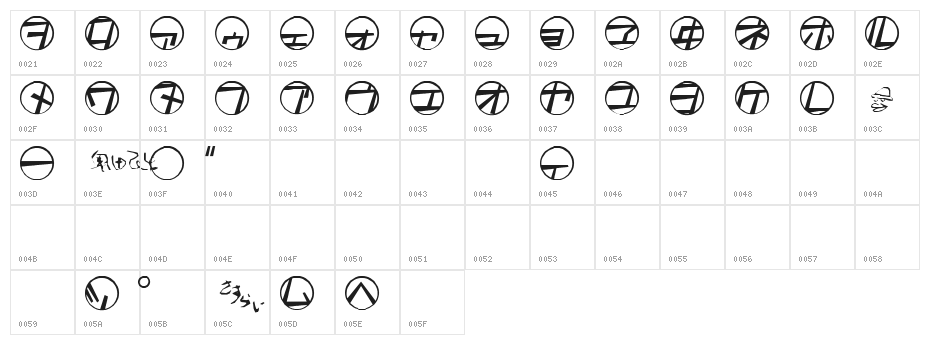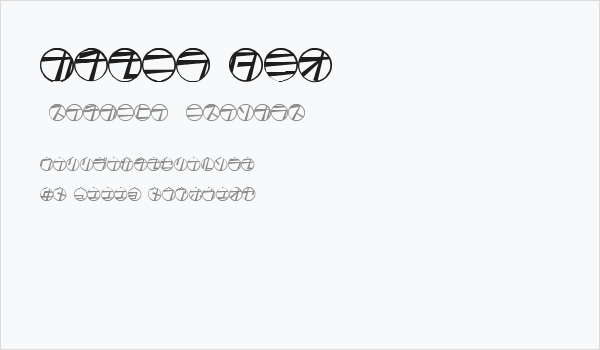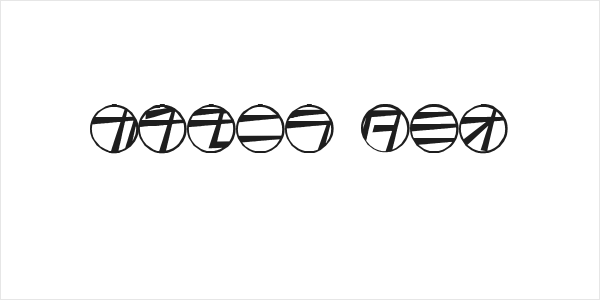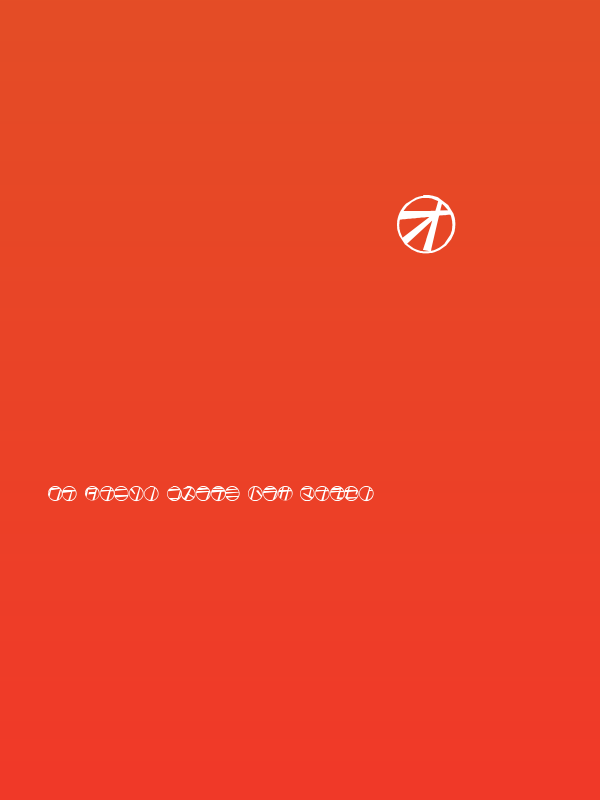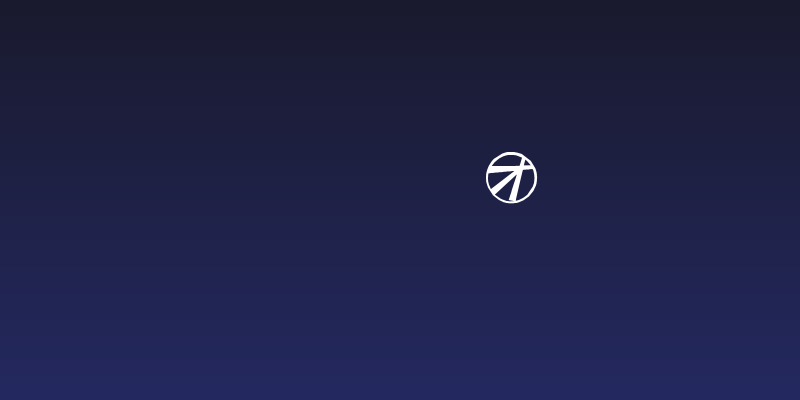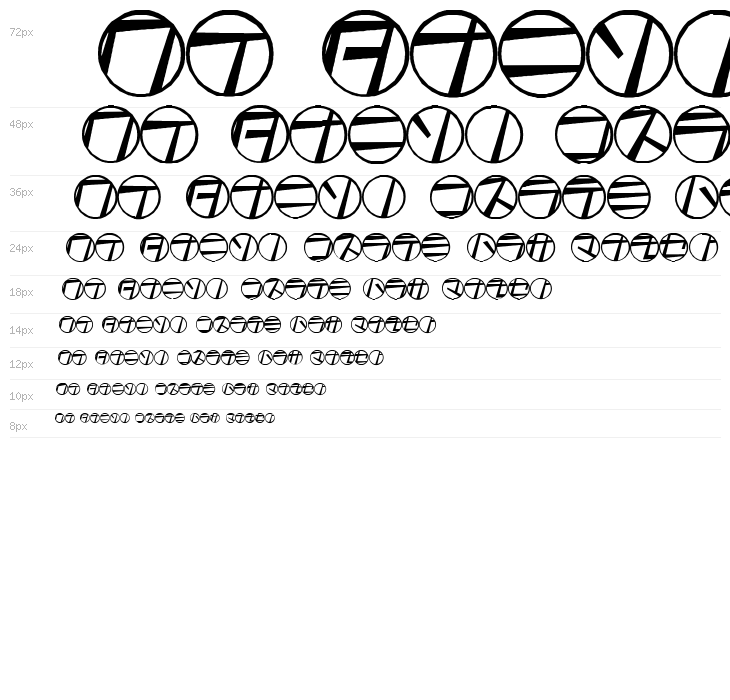
tamio qn6 Font
tamio qn6 Description
This font features a unique and artistic design where each character is enclosed within a circle, creating a distinct and cohesive look. The characters themselves are composed of bold, angular lines that intersect and overlap, giving a sense of movement and modernity. The circular enclosures add a playful yet structured element, making the font stand out. The overall appearance is geometric and abstract, with a strong visual impact that draws attention. This font is ideal for creative projects that require a bold statement.
| Use Case | Logos, Posters, Branding |
| Proposed Projects | Ideal for logos, branding, posters, and any creative project that requires a bold and modern aesthetic. |